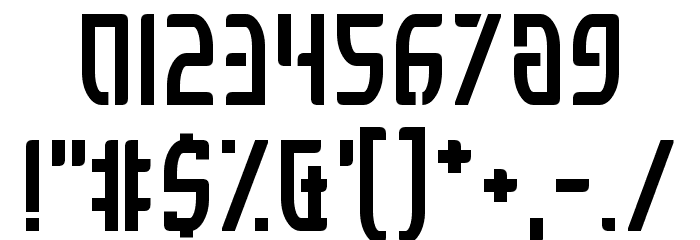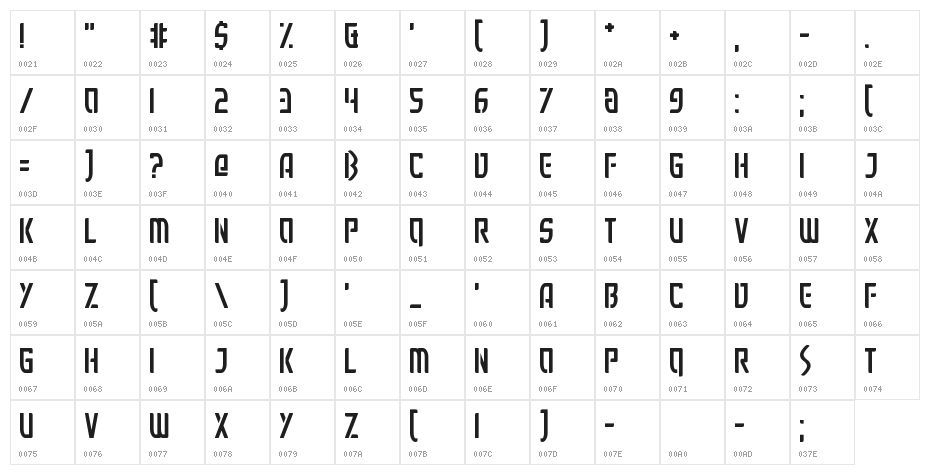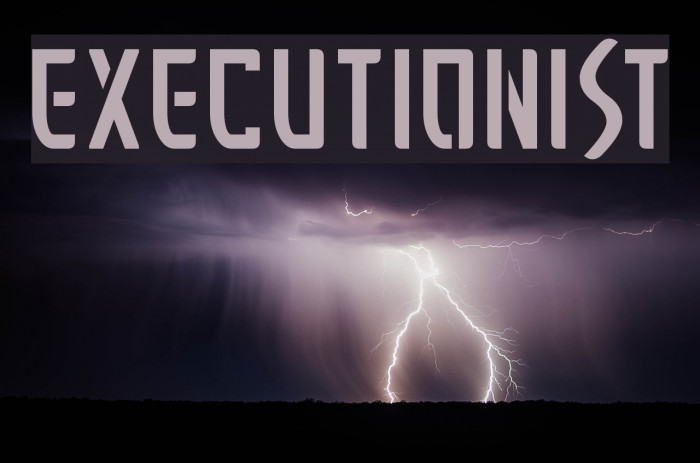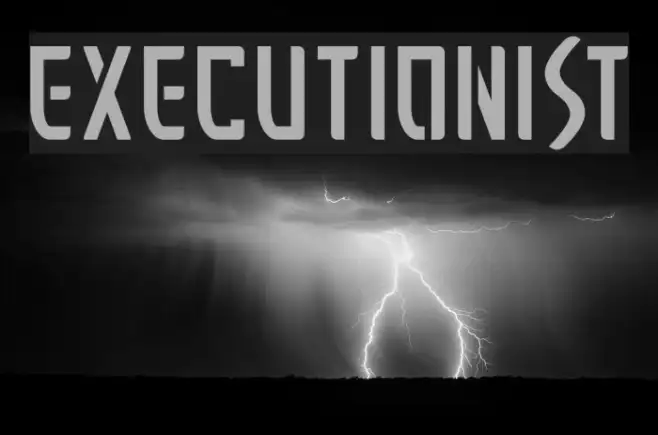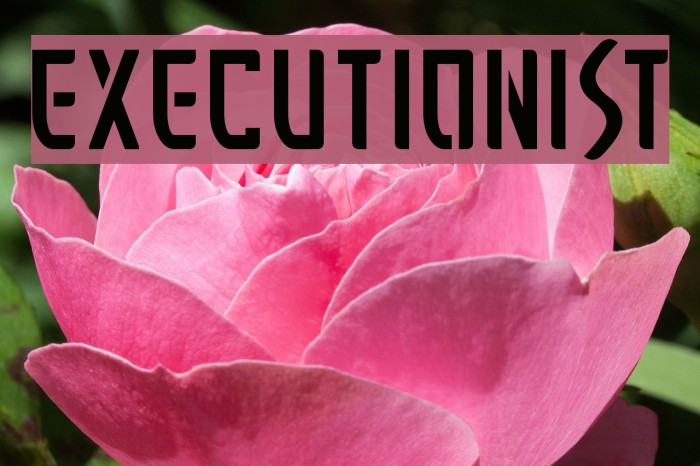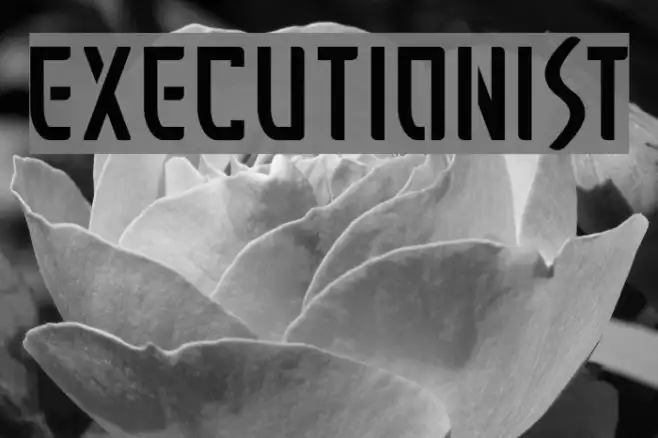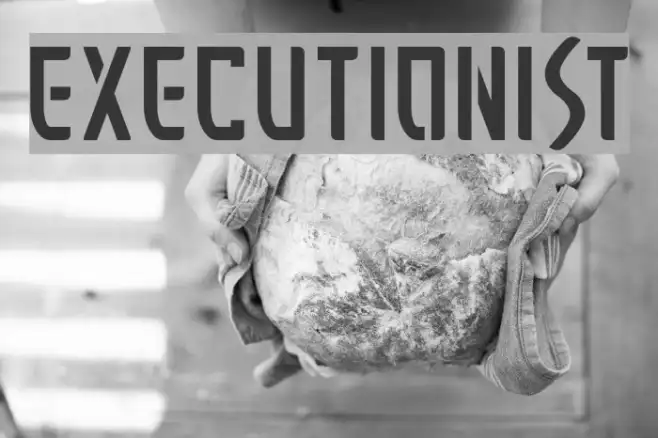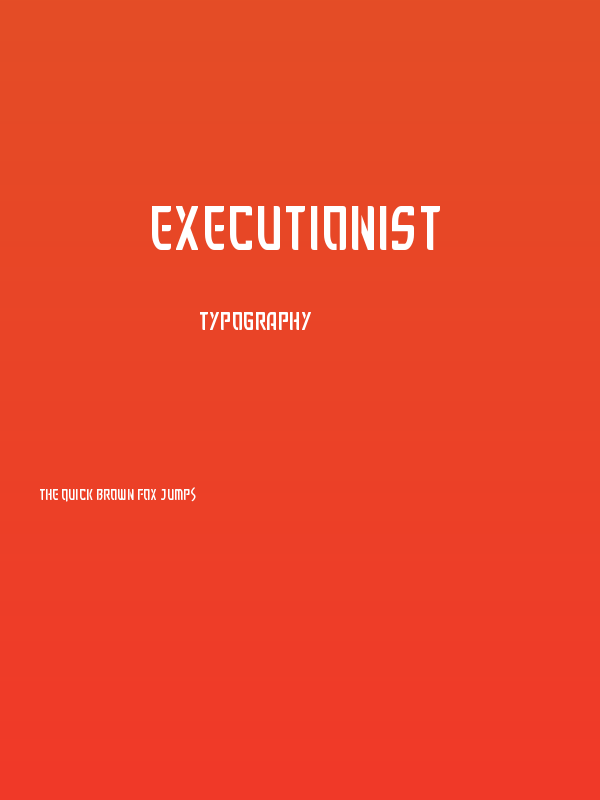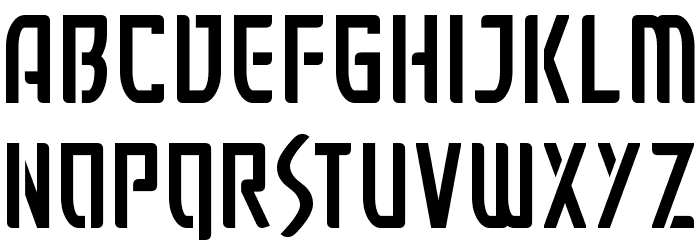
Executionist Font
Executionist Description
This font features a bold, geometric style with a modern and futuristic aesthetic. The characters are constructed with clean, straight lines and sharp angles, giving it a distinct and assertive appearance. The uppercase letters are uniform in height, while the lowercase letters maintain a consistent style, enhancing readability. The numerals are equally bold and geometric, matching the overall design. Special characters are designed to complement the alphabet, maintaining the same bold and structured look. This font is ideal for projects that require a strong visual impact.
| Proposed Projects | Ideal for branding, posters, headlines, and any design needing a strong, modern impact. |